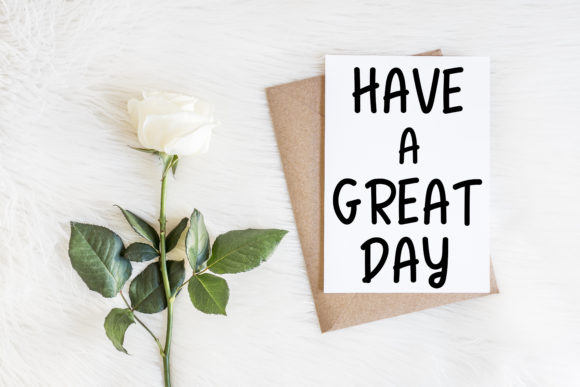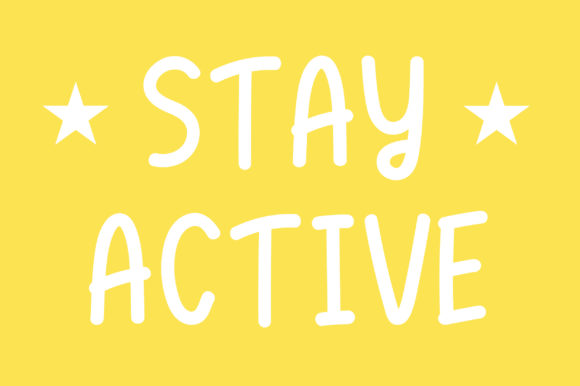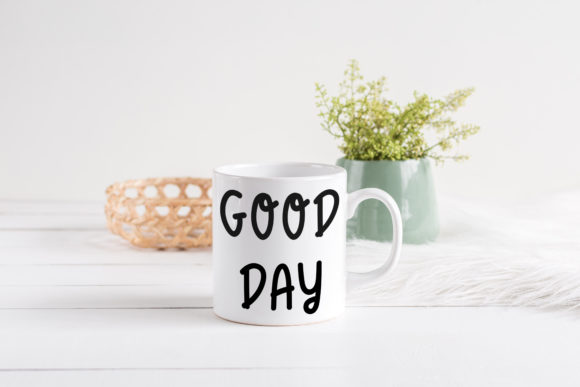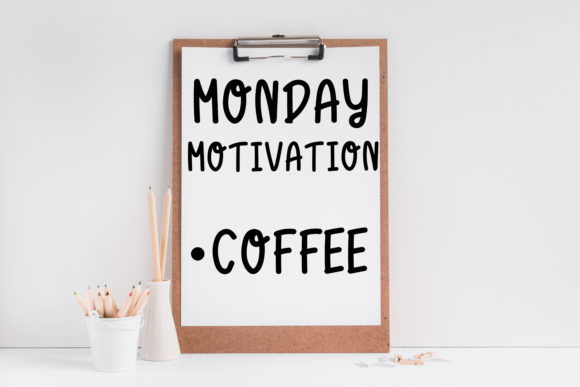
The Monday Morning Design Boost: Hello Monday Font
Ah, Monday mornings. The perfect time to refresh our design projects and inject some much-needed joy. I still remember the Monday morning when I was working on a project for a children’s birthday party, and my client asked me to add a playful touch to the invitation. I was struggling to find the right font, and that’s when I stumbled upon the Hello Monday font. It was love at first sight! ✨
This cute and quirky handwritten font has been a game-changer for my designs, and I’m excited to share my experience with you. In this article, we’ll explore the Hello Monday font, its features, and how to make the most of it in your designs.
- ✨ Playful and joyful vibe: Hello Monday font adds a dash of whimsy to any design, making it perfect for projects that need a friendly touch.
- ✅ Ease of use: This font is incredibly easy to read and works well in various design contexts, from digital to print.
- 💕 Versatility: Hello Monday font comes with a range of OpenType features, glyphs, and stylistic alternates, making it suitable for a wide range of creative projects.
A Few Quirks to Consider
While Hello Monday font is an excellent addition to any design project, there are a few things to keep in mind:
- 🤔 Legibility at small sizes: While the font is generally easy to read, it may become a bit tricky to decipher at very small sizes. Make sure to test it in your design before finalizing.
- ⚠️ Overuse: As with any font, using Hello Monday font excessively can make your design look cluttered. Balance is key!
The Story Behind Hello Monday Font
Hello Monday font was created with the intention of bringing a smile to people’s faces. Its designer aimed to craft a font that would add a dash of playfulness to any design, making it perfect for creative projects that need a friendly touch.
Q: What type of projects is Hello Monday font best suited for?
A: Hello Monday font is versatile and can be used in various design projects, such as children’s party invitations, social media graphics, blog posts, and more.
Q: Is Hello Monday font suitable for body text?
A: While Hello Monday font is easy to read, it’s best suited for headings and titles. For body text, consider using a more traditional font.